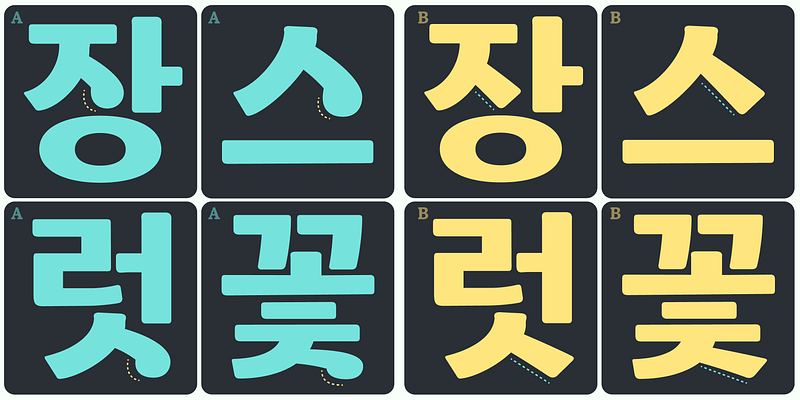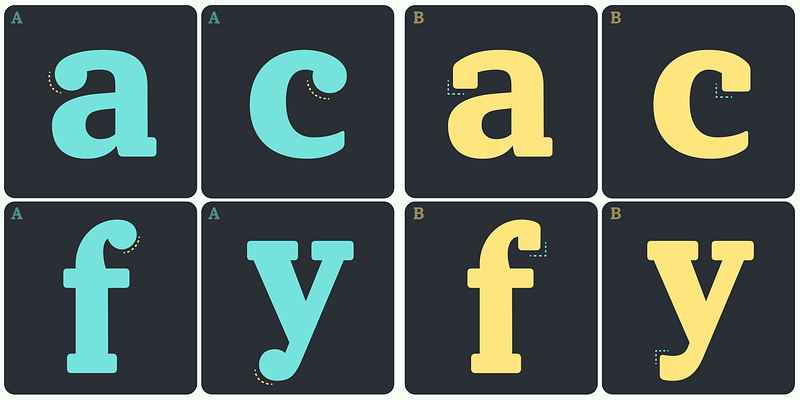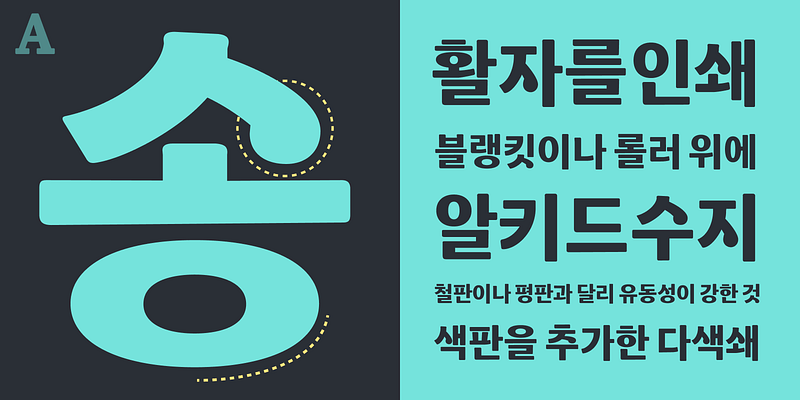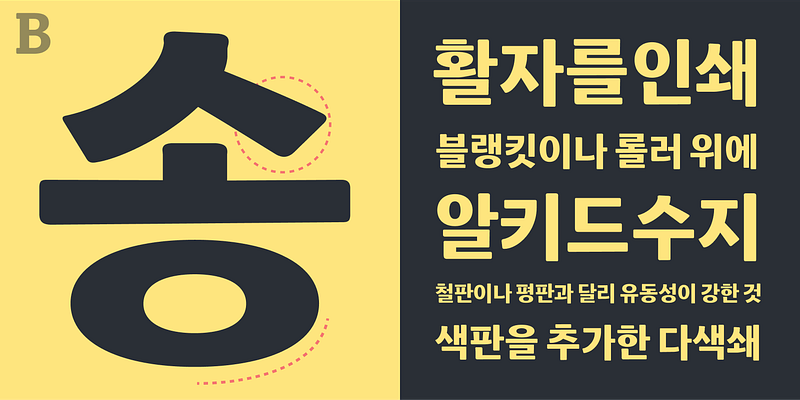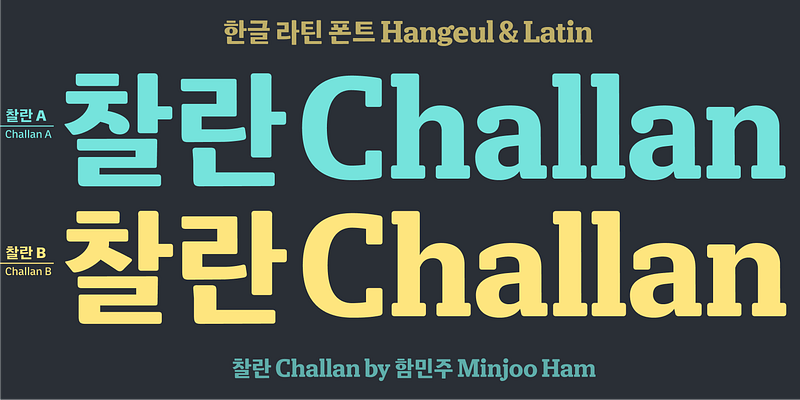
글꼴 페어링 가이드를 통해 자세한 내용 확인 >Chalan is a Minburi (민부리) Sans Serif typeface that exudes a bright and positive aesthetic. It draws attention, especially to the distinctive shape of the lower points of ‘ㅅ’ and ‘ㅈ’. In Style A, a rounded form is employed, while Style B adopts a straight-line configuration. Choose the appropriate design based on the context of your project.
Despite its Sans Serif style, Chalan features a noteworthy contrast between horizontal and vertical strokes, leading the Latin version to adopt a Slab Serif format. The Chalan project commences with an Extrabold thickness, making it ideal for book titles, poster headings, and video thumbnails when used in bold and larger sizes.